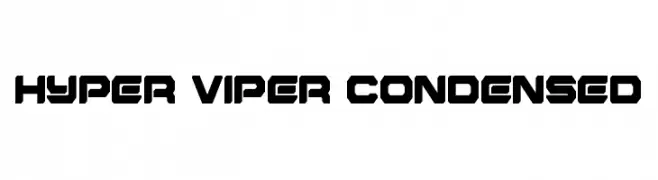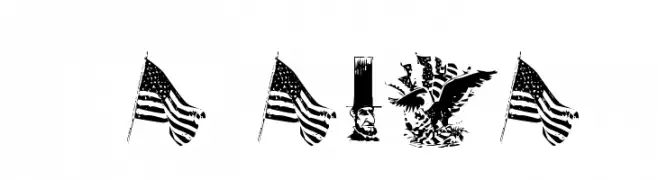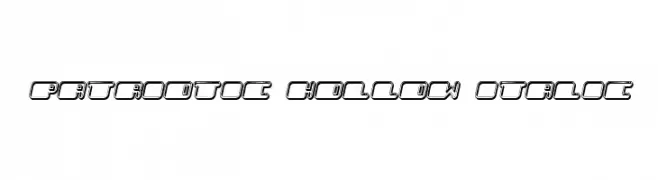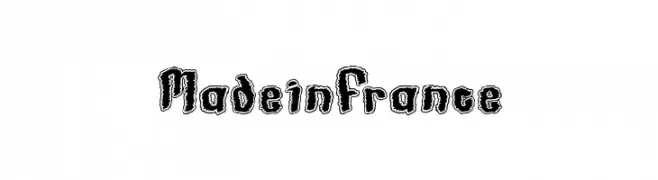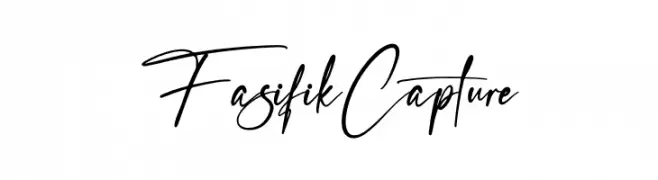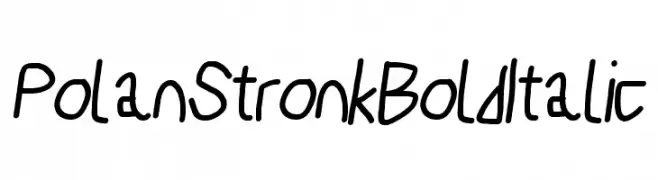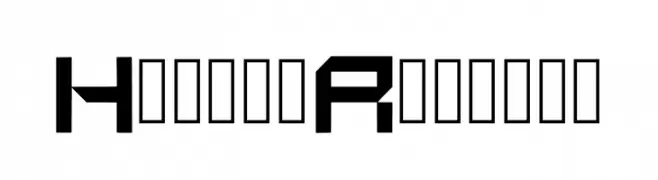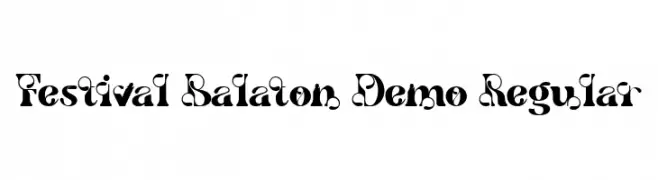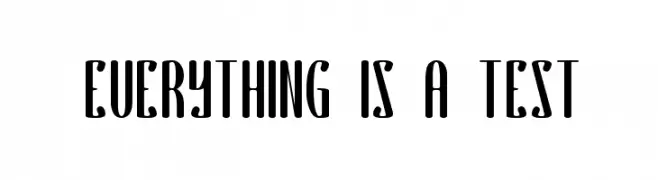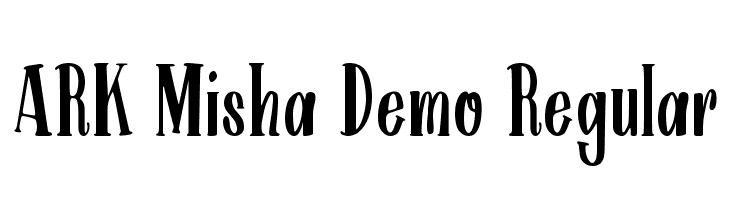
A bold, futuristic, and geometric font with a condensed style.
The image does not depict a valid font.
A bold, hollow, italic font with a modern and dynamic style.
A bold, decorative font with a textured, hand-drawn appearance.
A bold, expressive script font with fluid, interconnected strokes.
Expressive handwritten script with flowing, organic strokes.
A bold, italicized handwritten font with a playful and casual style.
A bold, geometric font with a futuristic and digital aesthetic.
A bold, decorative font with whimsical loops and curves.
A bold, playful font with rounded and elongated elements, ideal for creative projects.